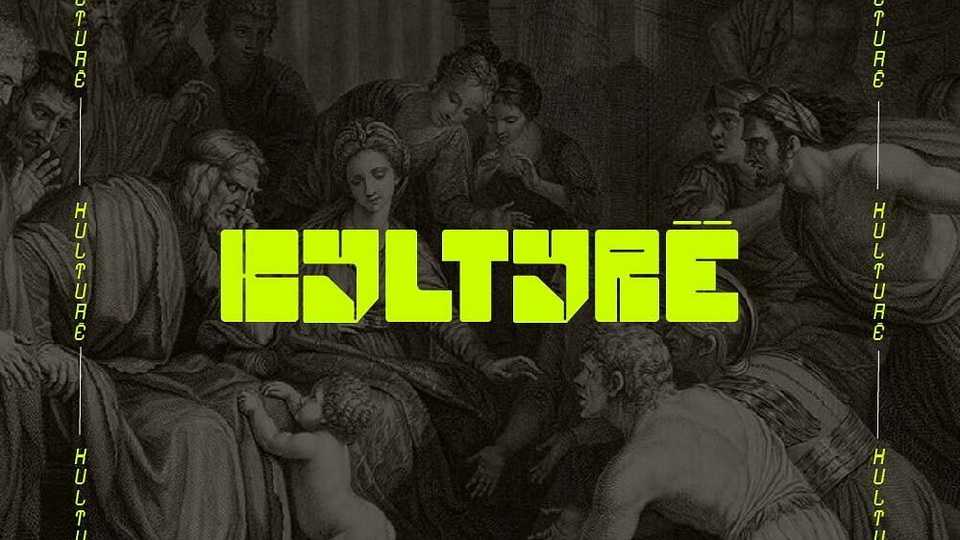
Download KYLTYRË font, a bold high contrast display typeface. With its unique and strong personality KYLTYRË font is perfect for grabbing attention and standing out from the crowd.
Designer: Leonit Gashi